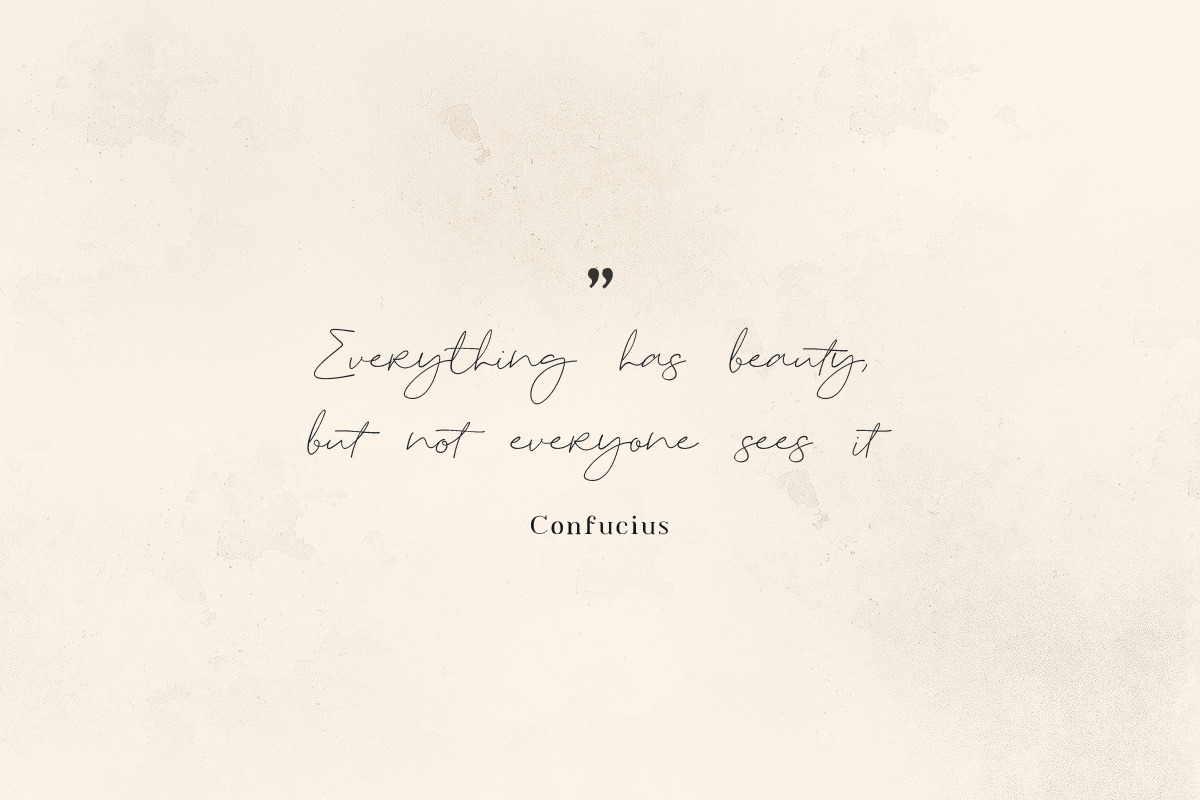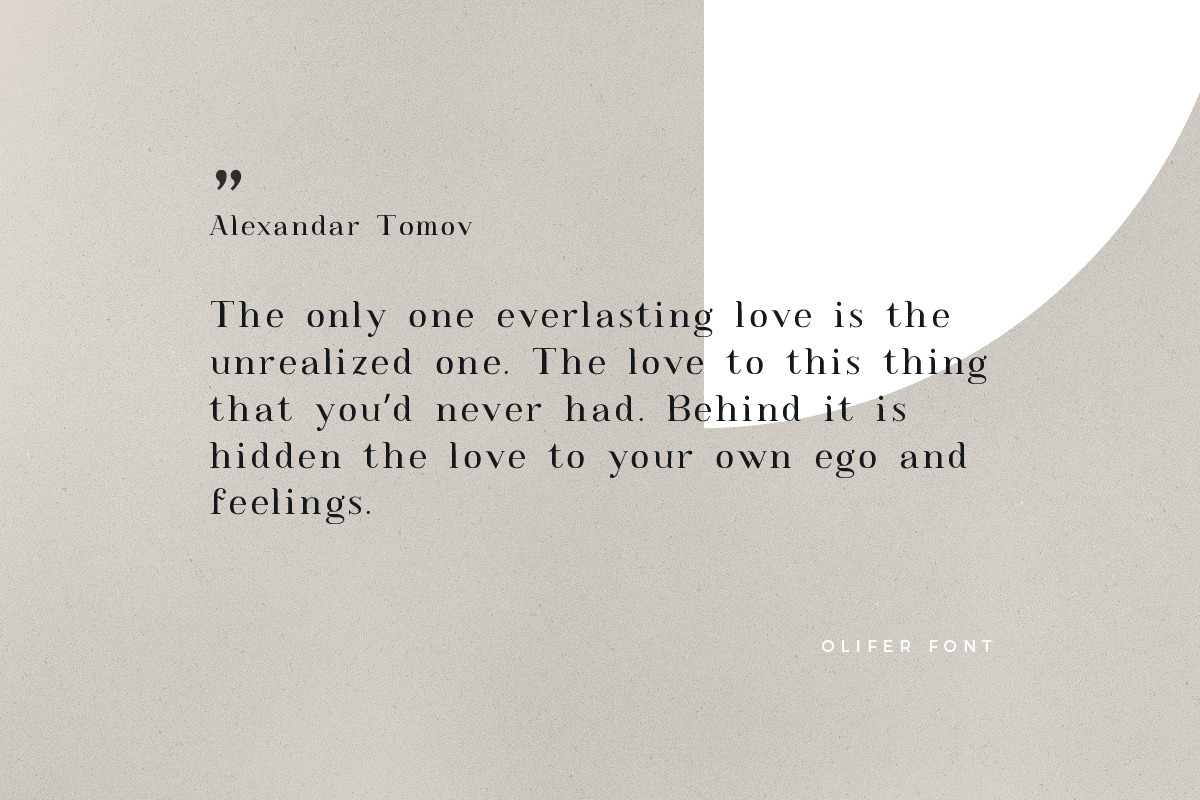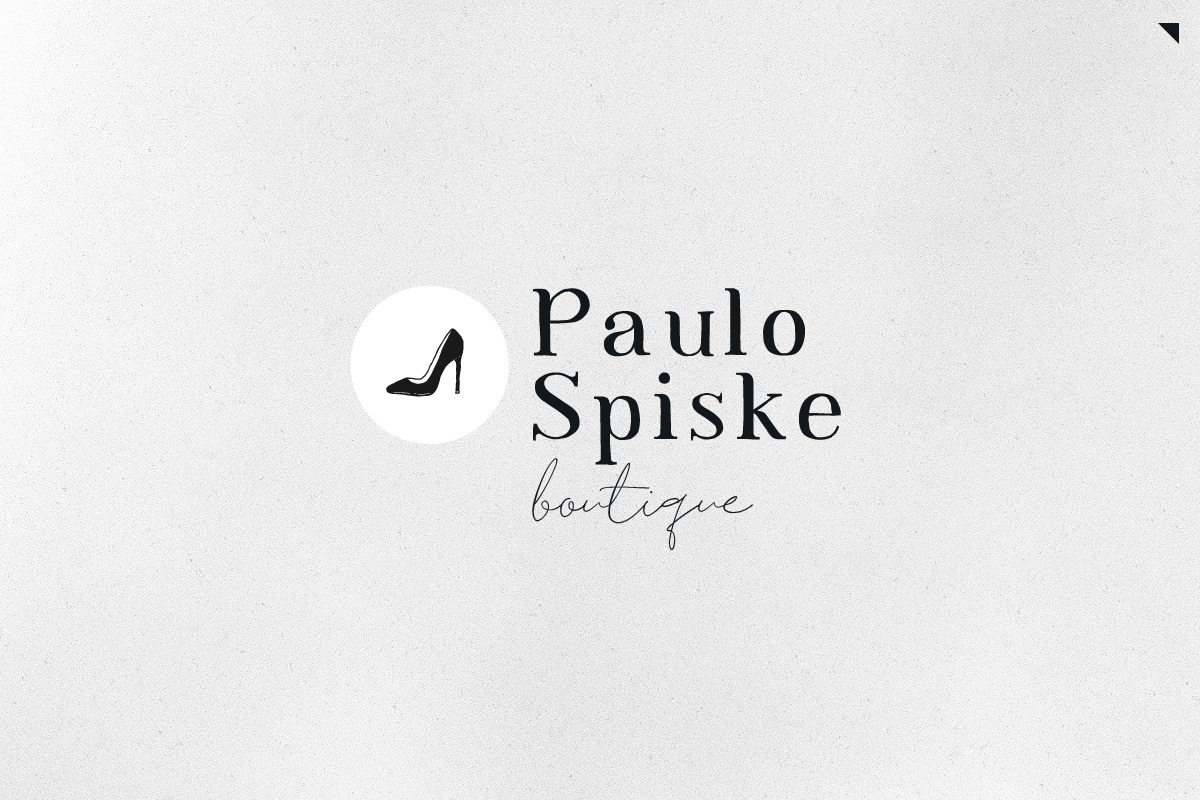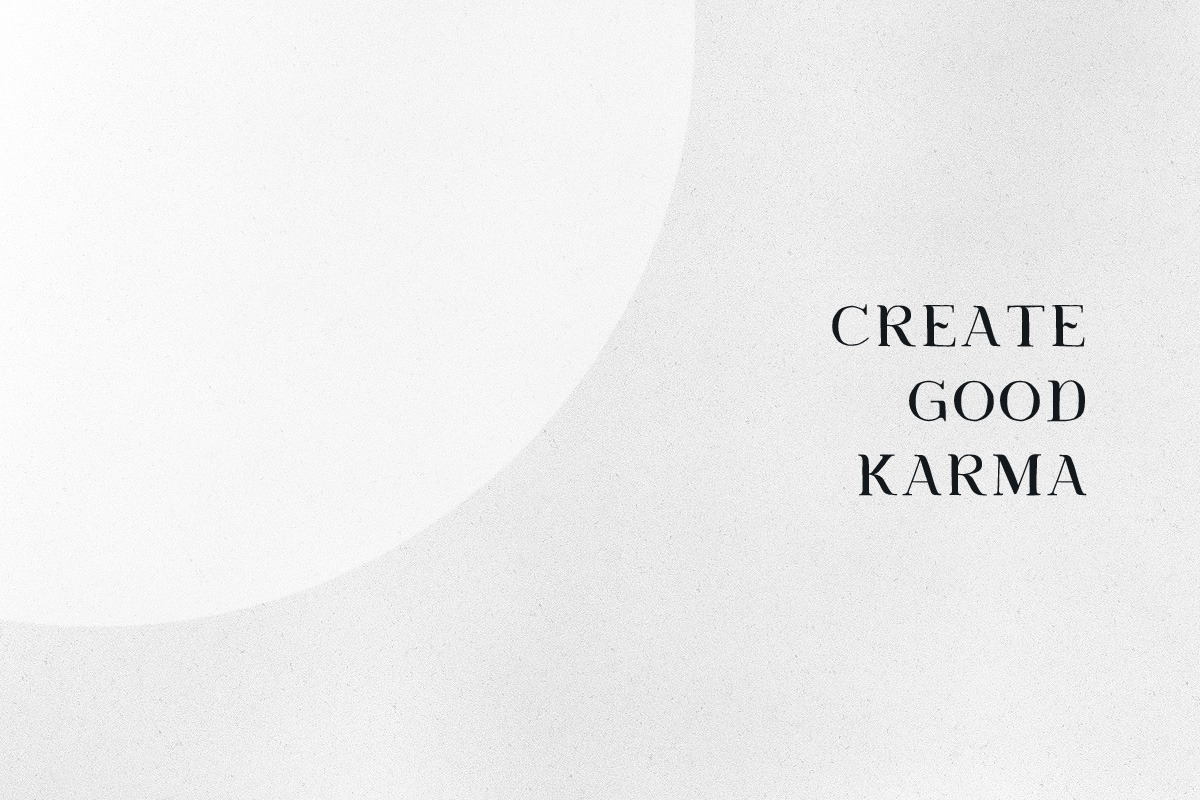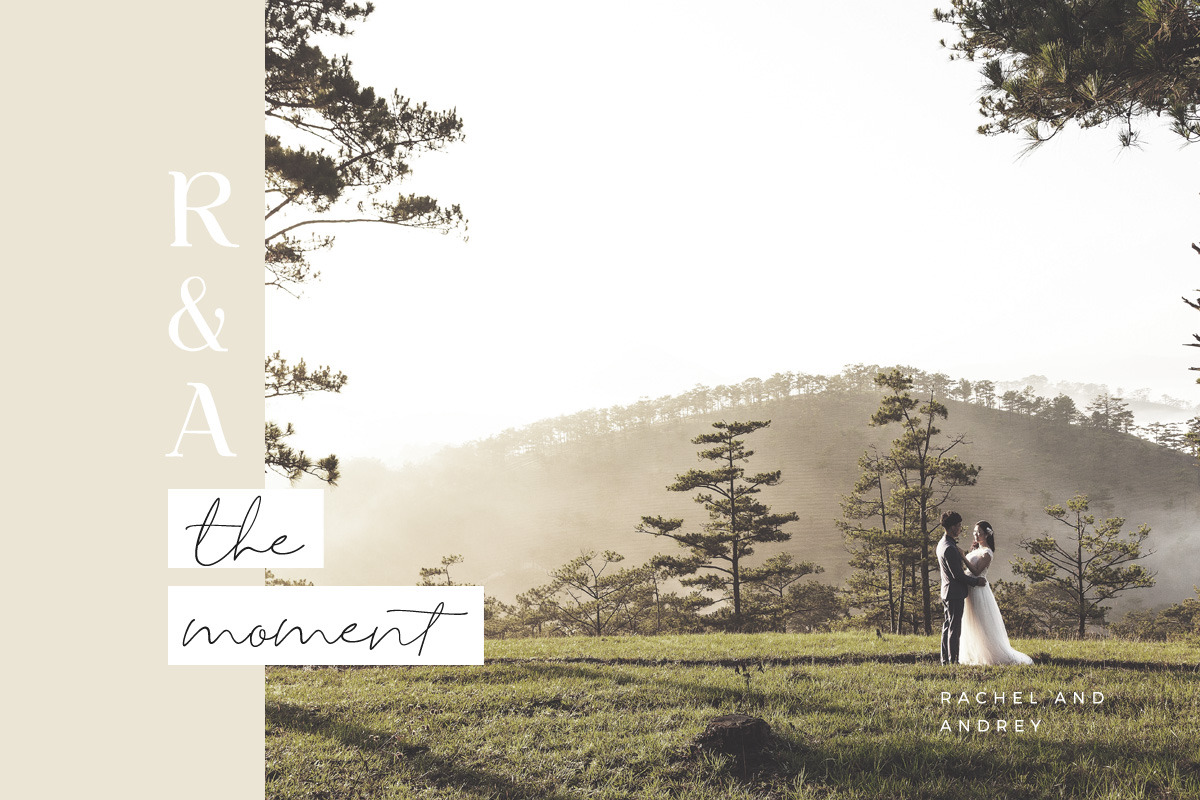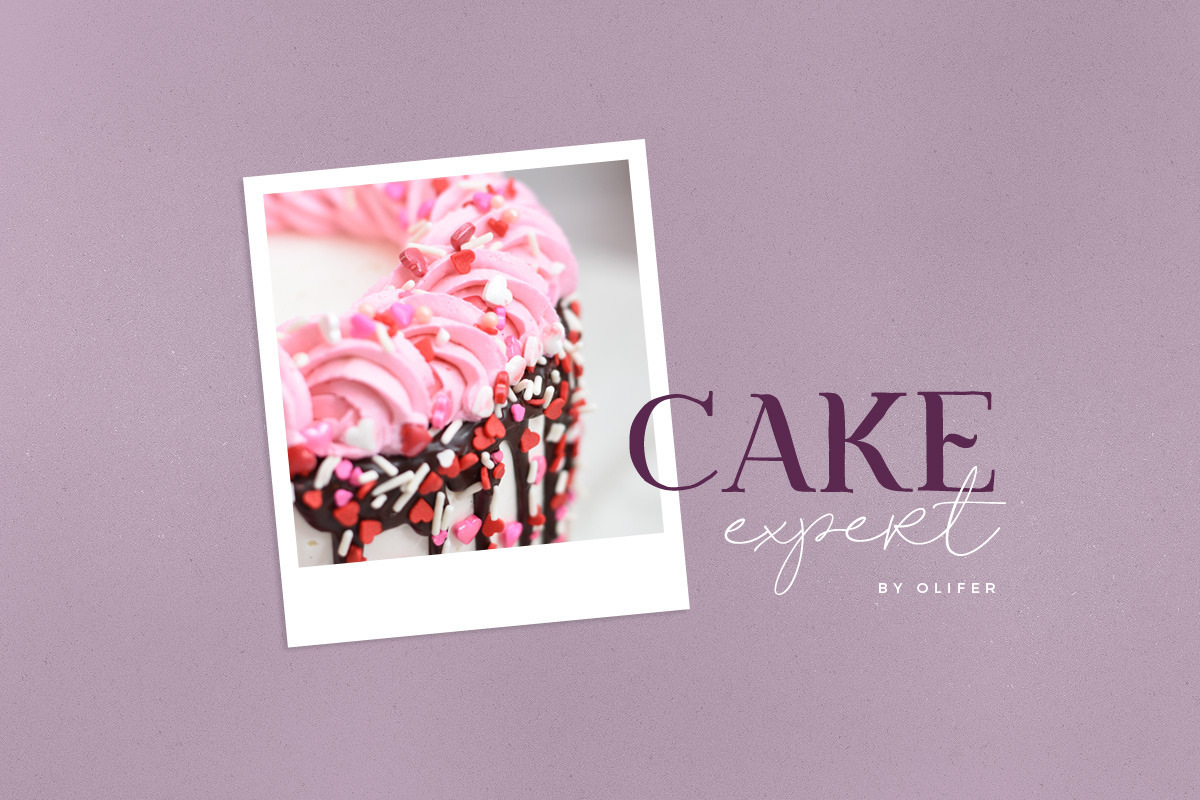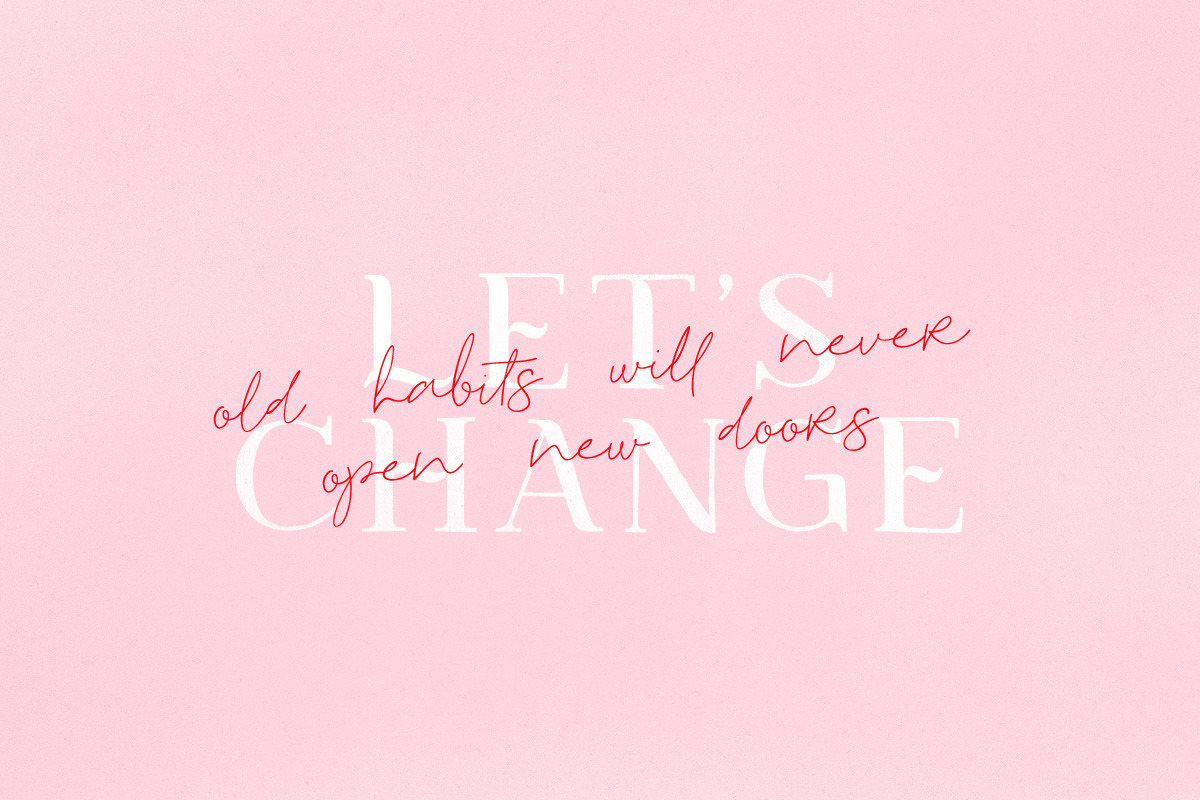
Olifer Font
Olifer is combination of modern serif and script font, every single letters have been carefully crafted to make your text looks beautiful. With modern script style this font will perfect for many different project ex: photography, watermark, quotes, blog header, poster, wedding, branding, logo, fashion, apparel, letter, invitation, stationery, etc.
Ligature & alternate glyph: at bl db et ett ht ll it gh nt ot ss st ut
Foreign languages support: ÀÁÂÃÄÅÆÇÈÉÊËÌÍÎÏÐÑÒÓÔÕÖØÙÚÛÜÝßàáâãäåæçèéêëìíîïðñòóôõöøùúûüýÿ
- Olifer Serif
- Olifer Script